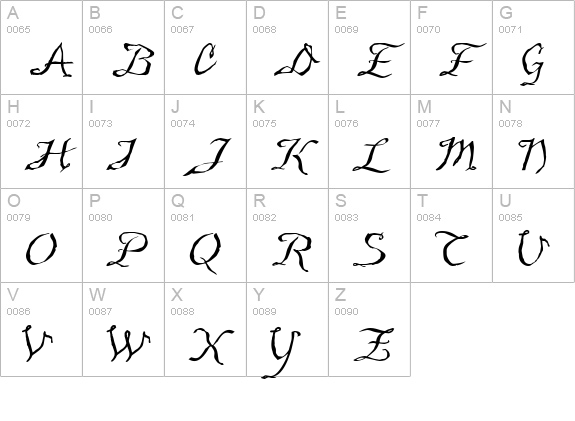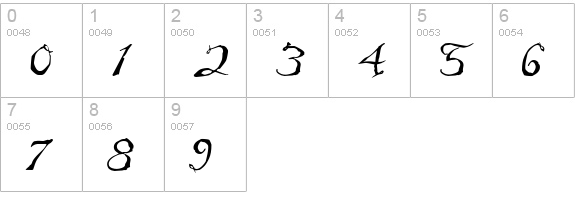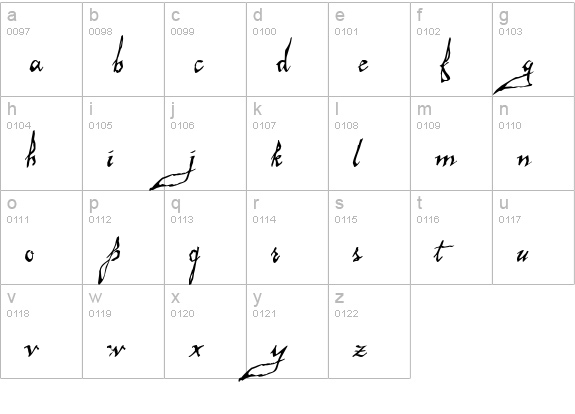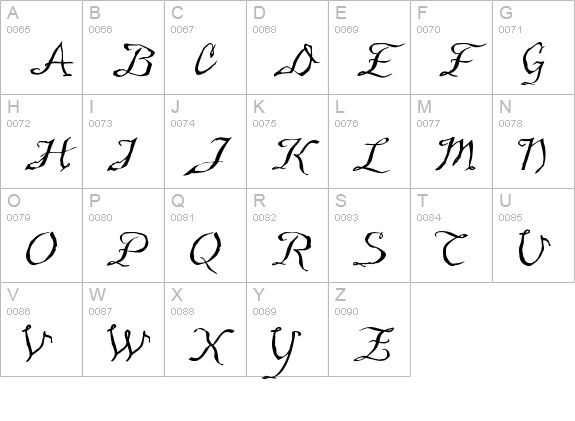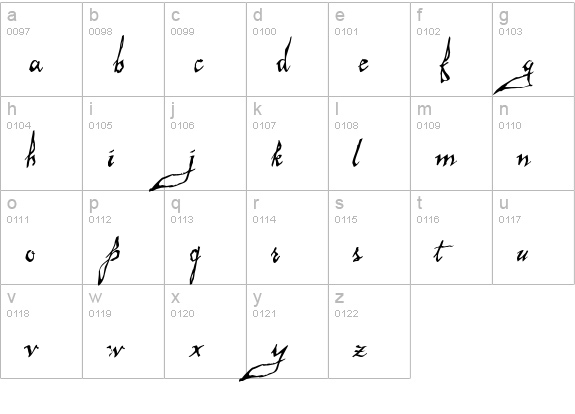
Malagua Font Details
Malagua is a stunning and versatile font that is sure to catch the eye of any designer or typographer. Its elegant curves and unique letterforms make it a perfect choice for a wide range of design projects, from branding to packaging to editorial design. The font exudes a sense of sophistication and modernity, making it a great choice for those looking to add a touch of style to their work. One of the best things about Malagua font is that it is completely free to download. You can easily get your hands on this beautiful typeface at FontsMarket.com, where you can access a wide range of fonts for all your design needs. Don't miss out on the opportunity to enhance your projects with the beauty and versatility of Malagua font – download it today and see the difference it can make in your designs!